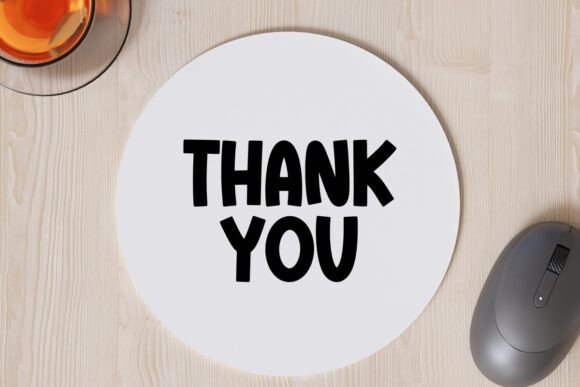
Fancy College Font
Presenting Fancy College, an irresistibly cute and audaciously bold display font that breathes life into any design it graces. Its unique style is not only attractive but also inspiring; a true testament to the beauty of typeface design. So, whether you’re looking to inject some vibrancy into your favorite works or searching for that distinctive touch, Fancy College is your perfect partner. Experience the transformative power of this extraordinary font and let Fancy College redefine your design aesthetics.